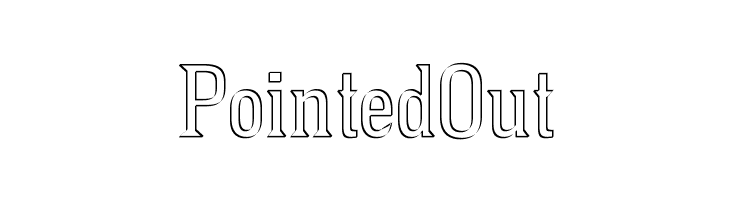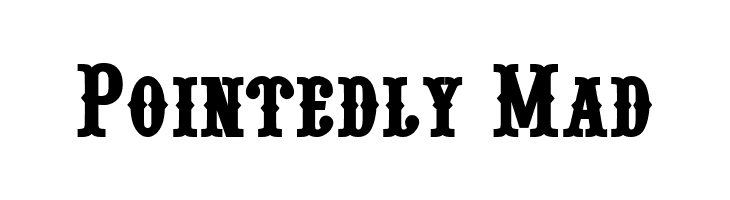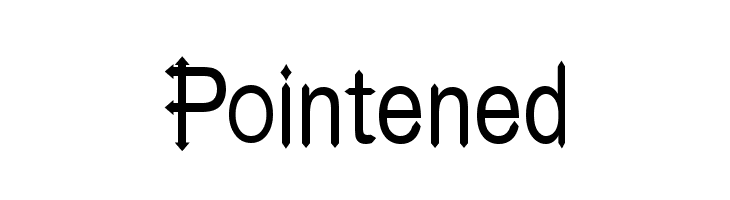
( Fonts by Andy Krahling - Sunwalk )
A serif font with sharp, pointed serifs and medium contrast, offering a bold and authoritative look.
( Fonts by Southype )
A modern, dotted font with geometric precision and playful design.
( Fonts by Rich Gast - www.greywolfwebworks.com OFF SITE )
A bold, vintage-style serif font with dramatic strokes and strong presence.
A bold, vintage-style serif font with high contrast and dramatic serifs.
( Fonts by Andy Krahling - Sunwalk )
A modern outline serif font with sharp, angular serifs and a three-dimensional effect.
( Holitter Studios )
A bold, modern font with arrow-like points extending from each character.